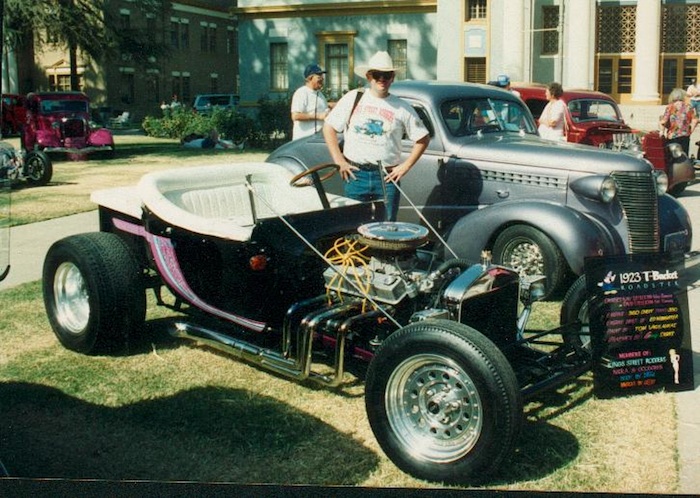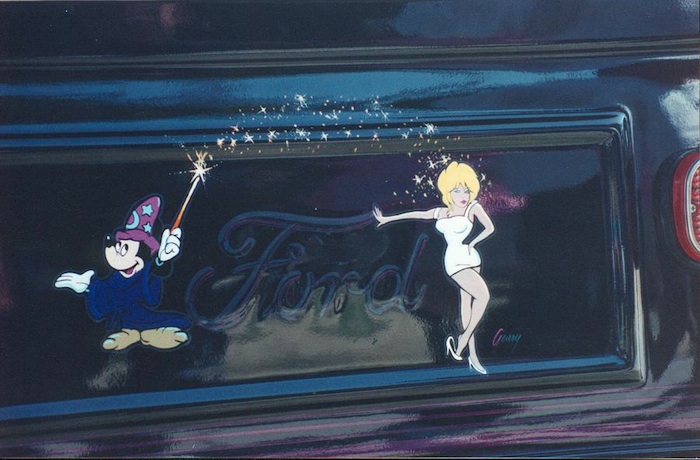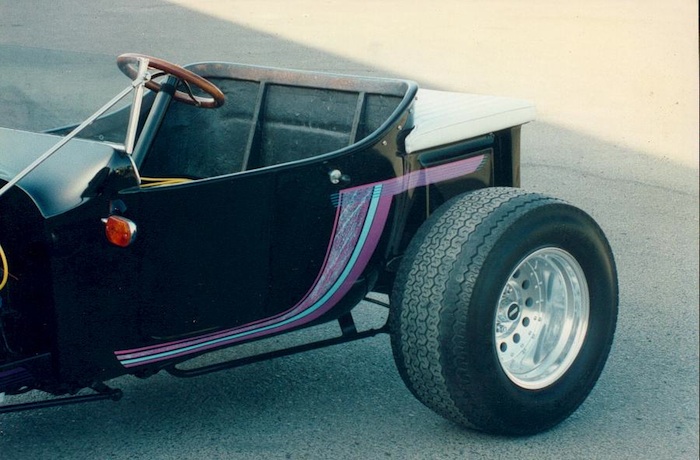
Loved working on this replica 23 T-Bucket. All 1-Shot.
Hot Rod graphics
Re: Hot Rod graphics
Nice, you don't see those in the UK.
All 1 - shot, wow that must have cost a few $.
Re: Hot Rod graphics
Very clean! Reminds me of the Lil John cars of the 80's!!
Is this all by brush?
The speckling on the stripe graphics really makes it work!
Could you tell us how to?